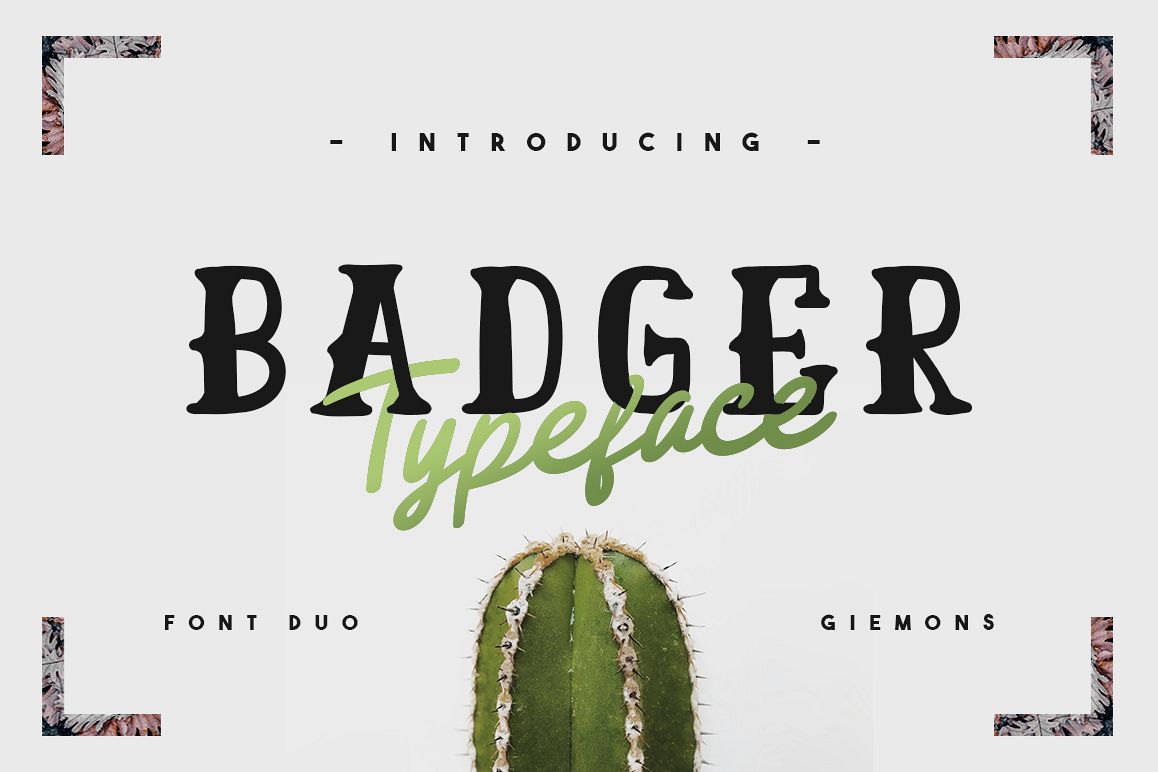
Badger Font Duo
BADGER TYPEFACE can make it easier to convey the message in your design. Use for awesome display, labeling, clothing, movie sceen, poster, movie title, gigs, album covers, logos, and much more.
Badger Reguler
Badger Script